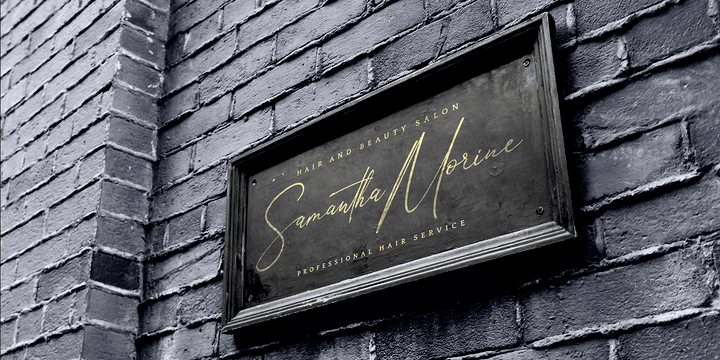
Anthoni Signature Font Adobe. Anthoni signature font is perfect for many different project such as logos & branding,. This font is only for personal use.
Anthoni signature font is perfect for many different project such as logos & branding, invitation, stationery, wedding designs, social media posts, advertisements, product packaging, product designs, label, photography, watermark, special events or anything. Anthony is a handwritten script font with signature style that make your latest project awesome. This is the easiest way to bring great type into your.
Anthoni Signature Is A Handwritten Signature Script With A Natural & Stylish Flow.
Anthoni signature is a handwritten signature script with a natural & stylish flow. Postscript 239 glyphs 256 characters. This collection of scripts is perfect for personal branding.
Anthoni signature font is perfect for many different project such as logos & branding, invitation, stationery, wedding designs, social media posts, advertisements, product packaging, product designs, label, photography, watermark,. Anthoni signature font is an elegant font family famous because of its stylish and precise appearance. Anthoni signature font is an elegant font family famous because of its stylish and precise appearance.
Along The Exceptional Swashes And Cursive Texture, It Can Easily Approachable For A Huge Style Of Projects.
Anthoni signature is a handwritten signature script with a natural & stylish flow. Anthoni signature contains 1 style. A trio of fonts based on the handwriting of some of adobe’s own designers.